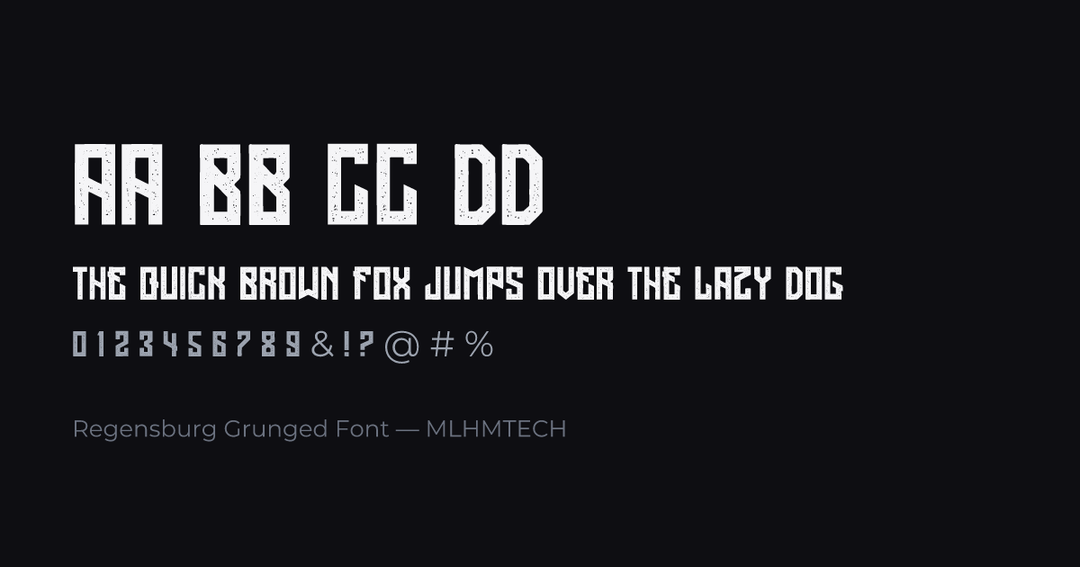
Regensburg Grunged Font
Regensburg Grunged is a bold, distressed display font that adds a raw, urban edge to any design. Ideal for posters, logos, and branding projects.
Regensburg Grunged is a striking display typeface characterized by its heavy, distressed letterforms. Each glyph carries a worn, grunge texture that gives your designs an authentic vintage or streetwear feel. The font includes uppercase and lowercase letters, numerals, and punctuation, making it versatile for various applications.
This font is perfect for creating impactful headlines, poster designs, album covers, merchandise, and branding that demands attention. Its rough edges and bold weight ensure legibility even at large sizes, while adding a unique character to your projects.